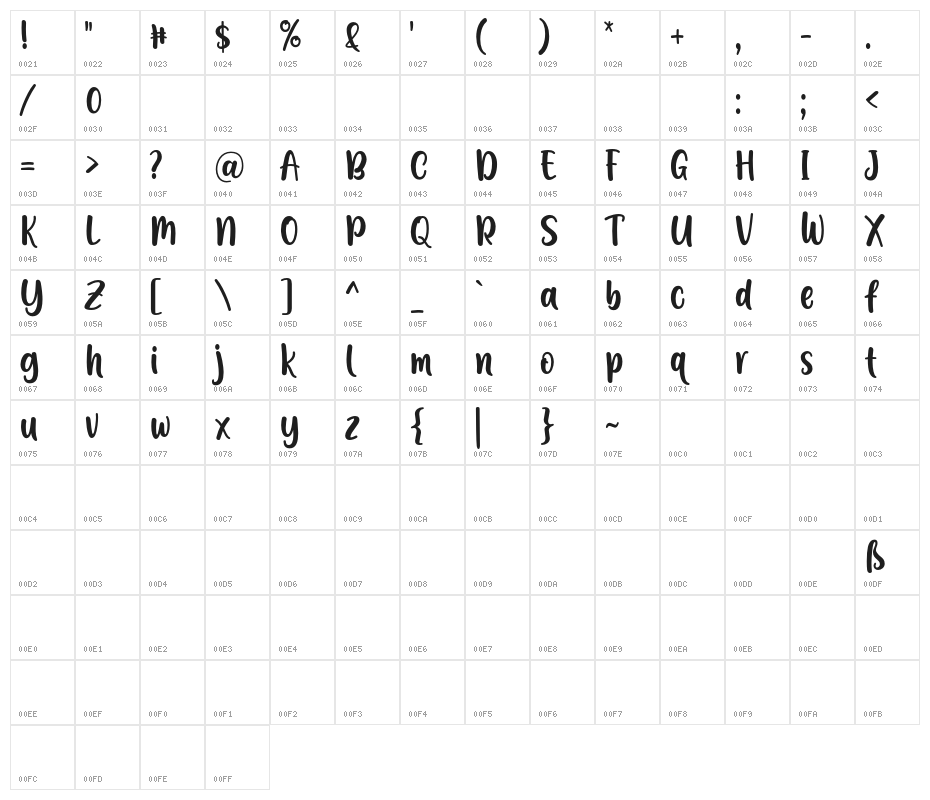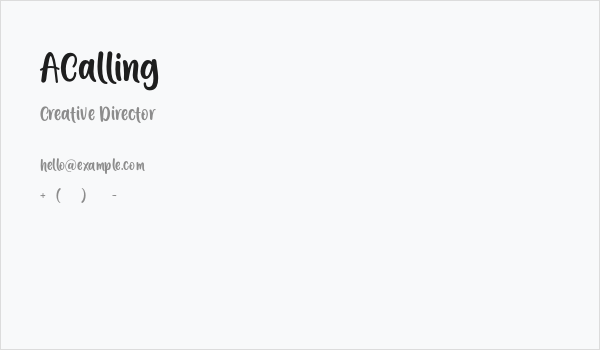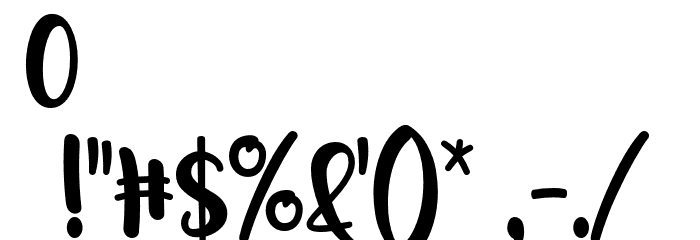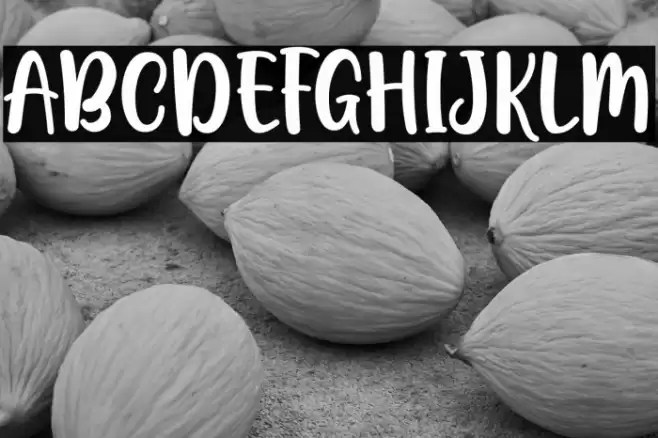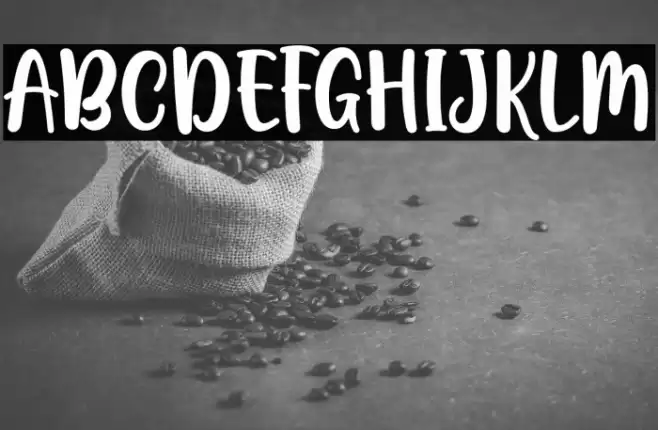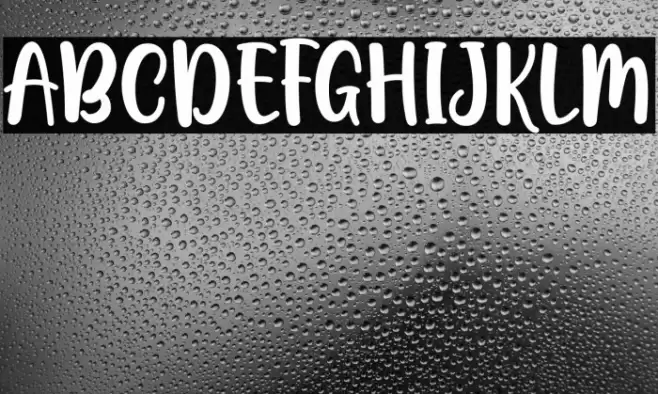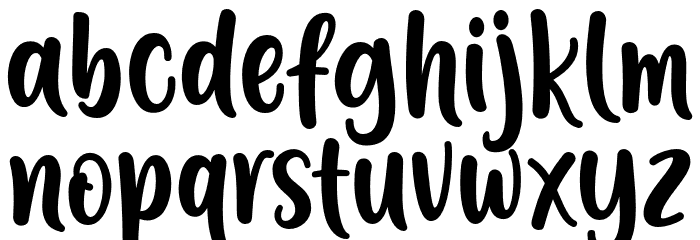
ACalling Font
ACalling Description
This playful and bold font features a handwritten style with thick, rounded strokes that convey a sense of warmth and friendliness. The letters are slightly slanted, adding a dynamic and informal touch. The uppercase and lowercase characters maintain a consistent weight, while the numbers and special characters integrate seamlessly into the overall design. The font's whimsical nature makes it ideal for projects that require a personal and approachable feel. Its boldness ensures readability, even at smaller sizes, while the rounded edges soften the overall appearance.
| Overall Style | Playful |
| Use Case | Headlines, Logos, Social Media |
| Proposed Projects | Perfect for greeting cards, children's books, playful branding, and social media graphics. |